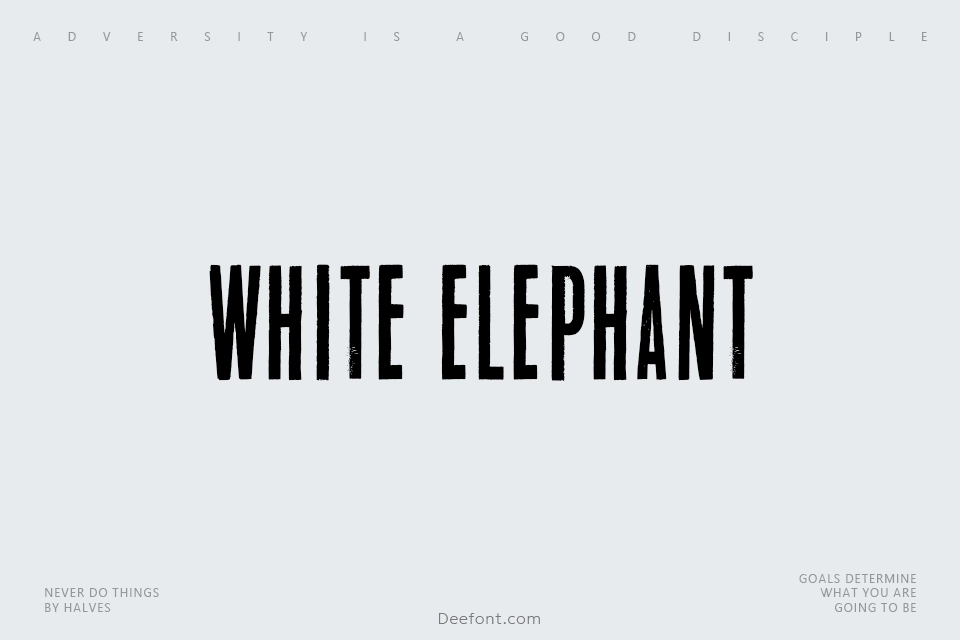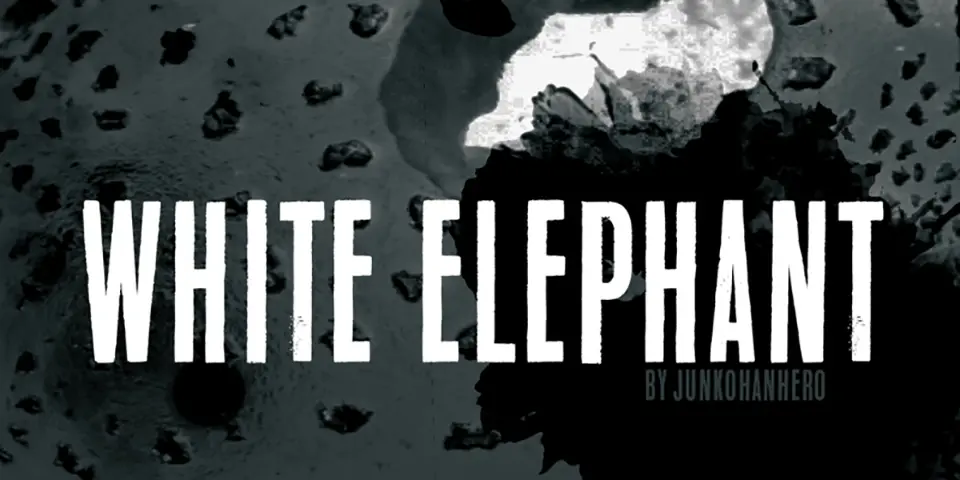
White Elephant Font
White Elephant is a captivating display font with an eroded, distressed texture that evokes a vintage, playful aesthetic. Designed with a circus and theatrical theme in mind, this fancy typeface combines bold, condensed letterforms with a worn appearance, making it ideal for headlines, posters, and creative projects that demand character and personality. The font’s light-hearted atmosphere suits design work ranging from hospitality branding to whimsical entertainment contexts.